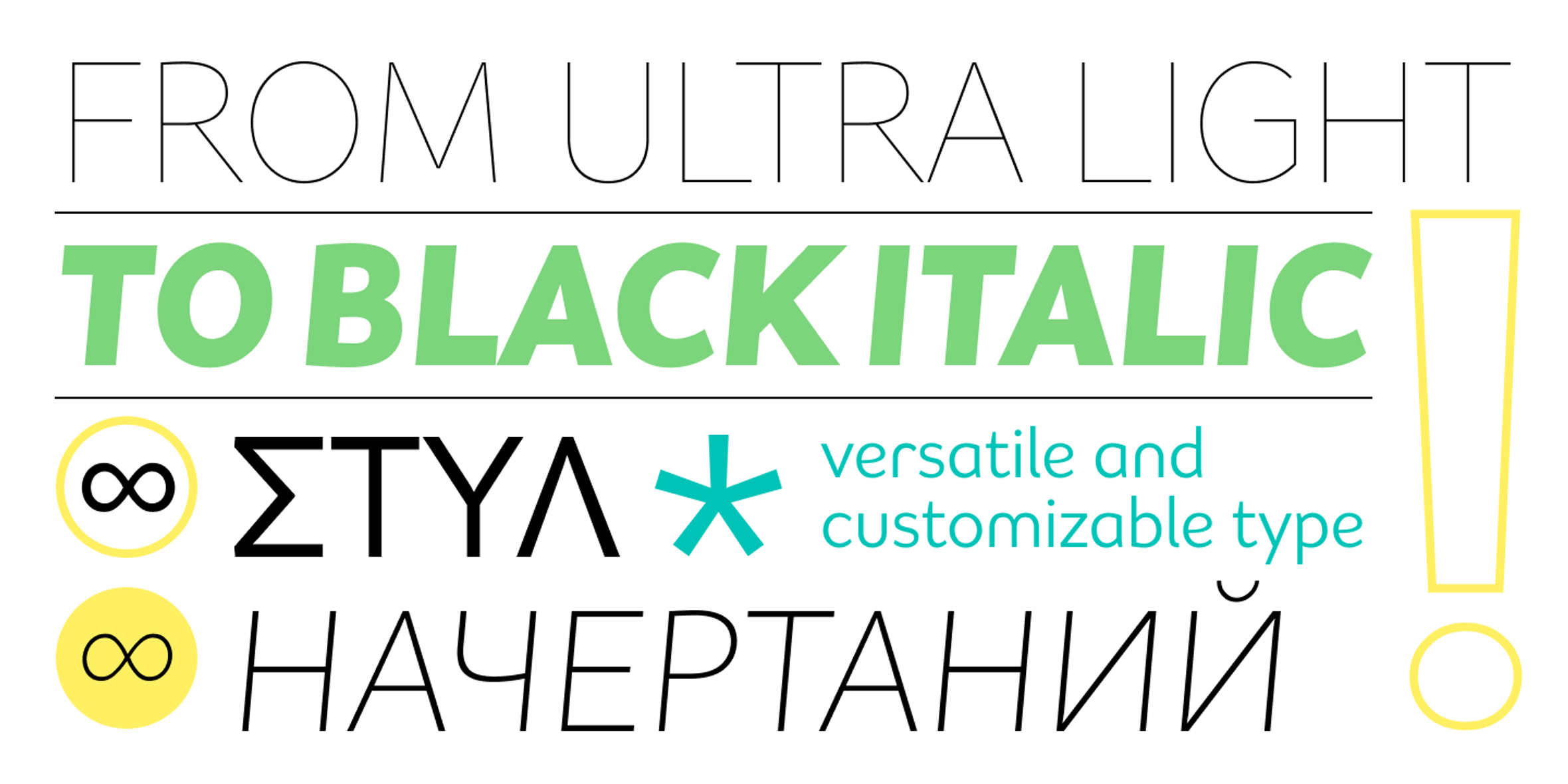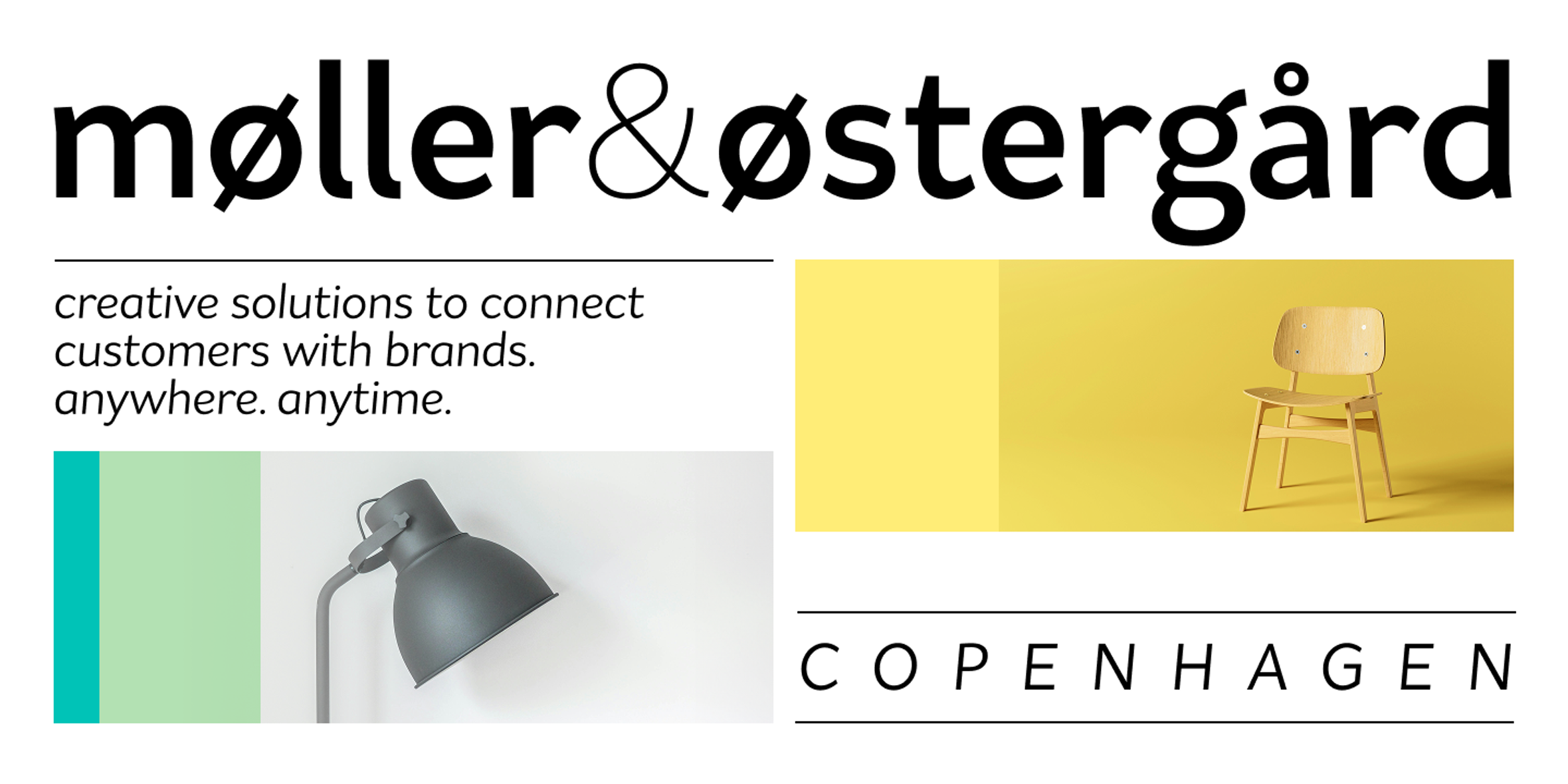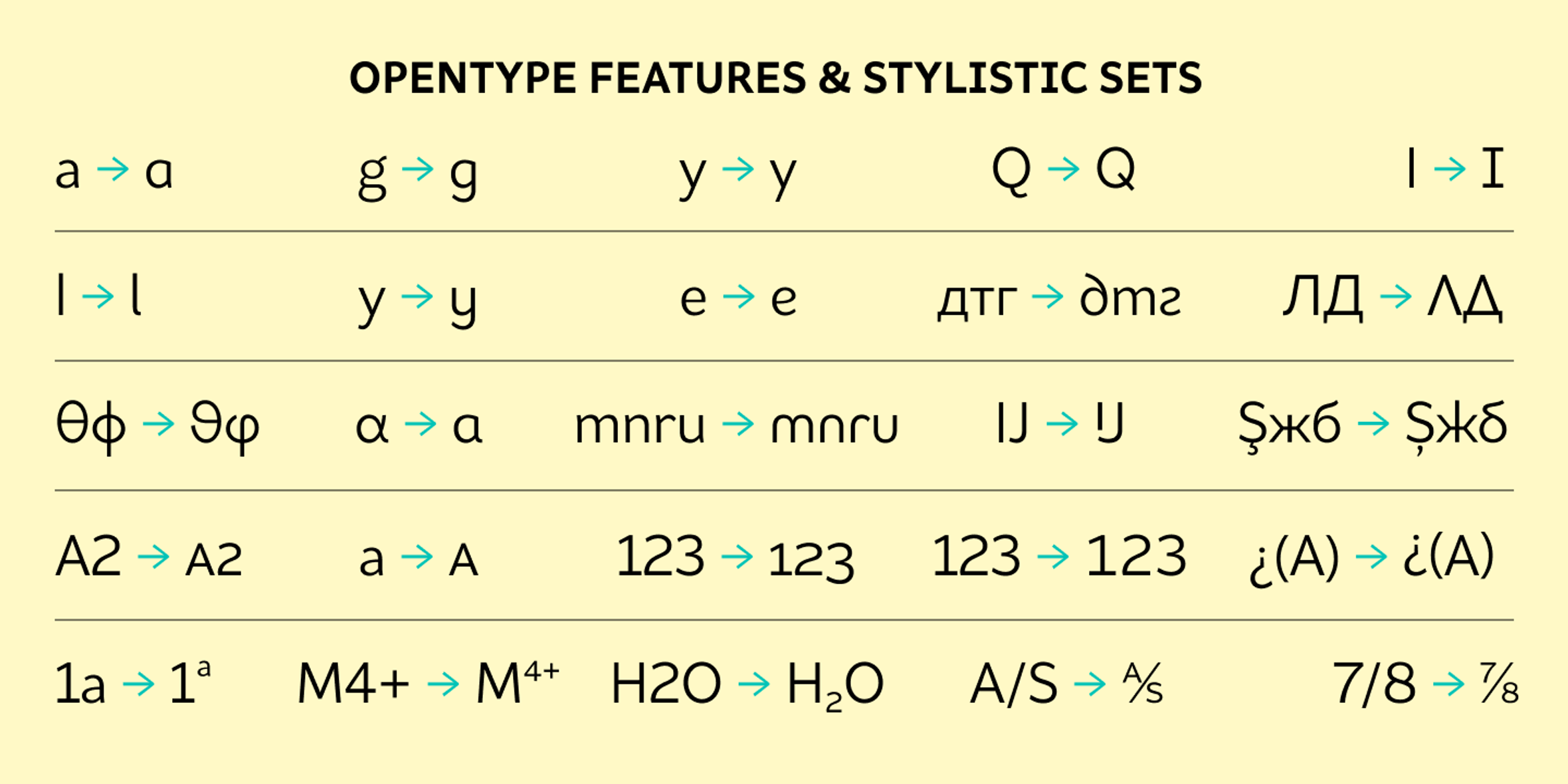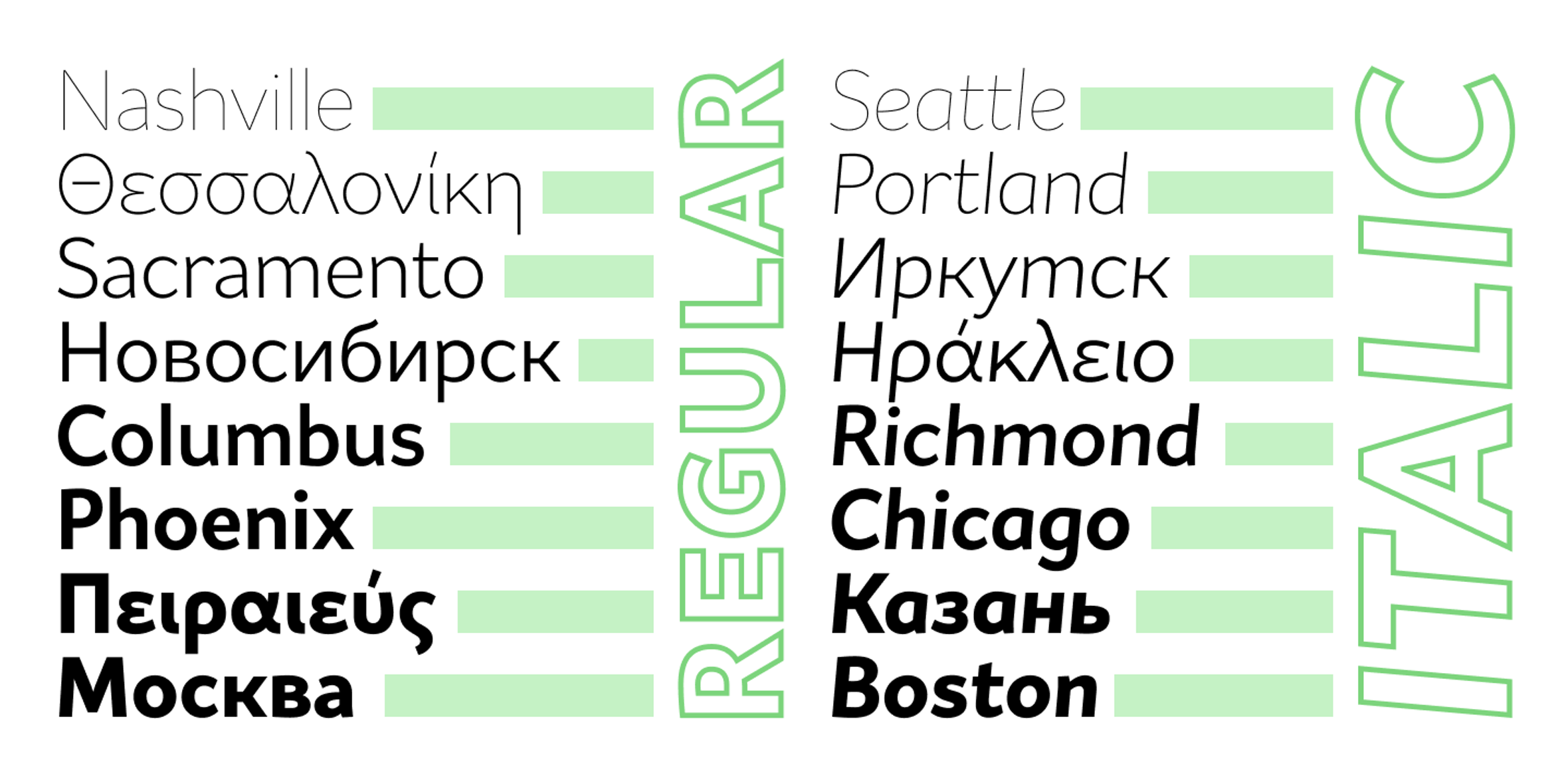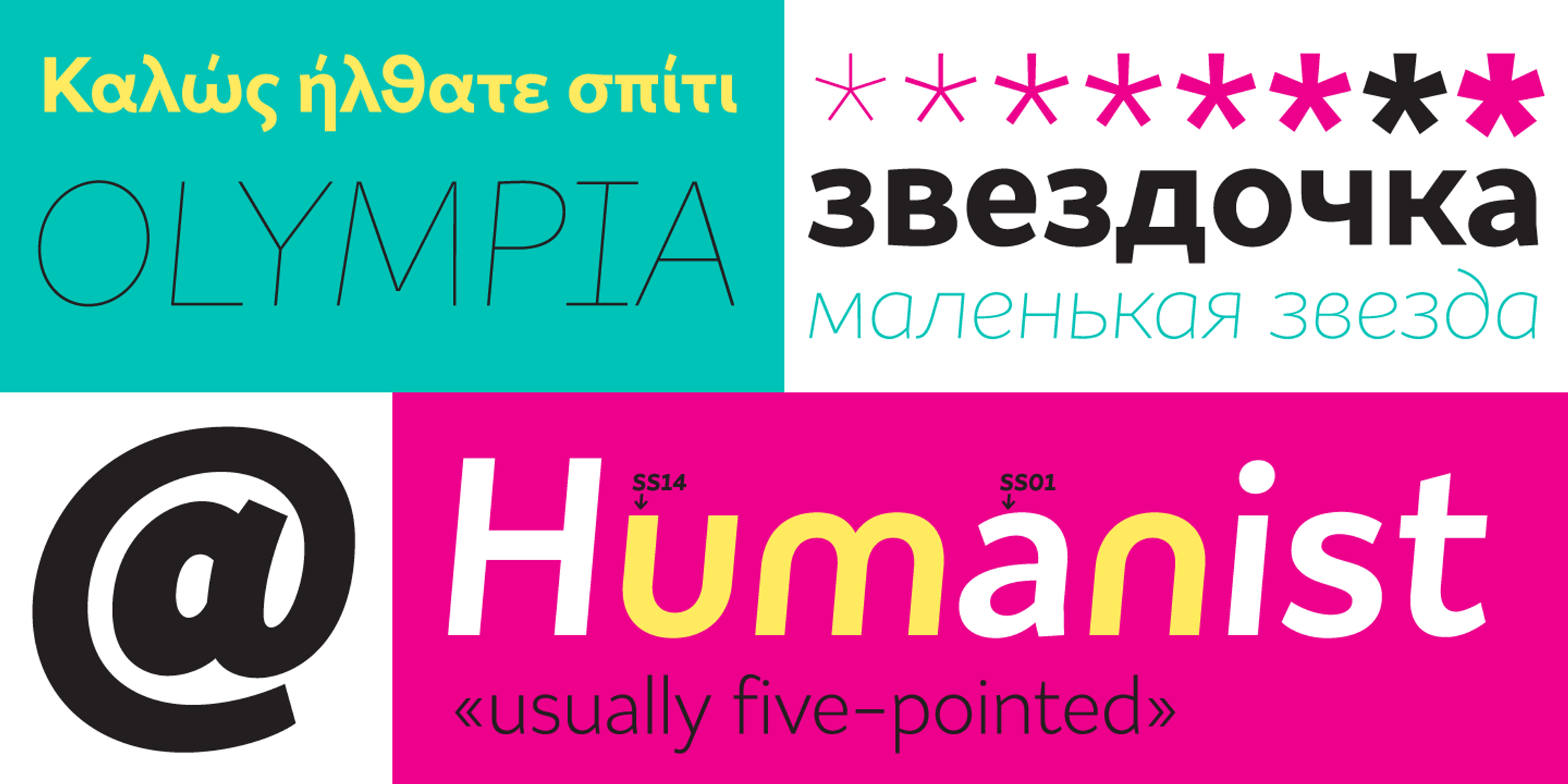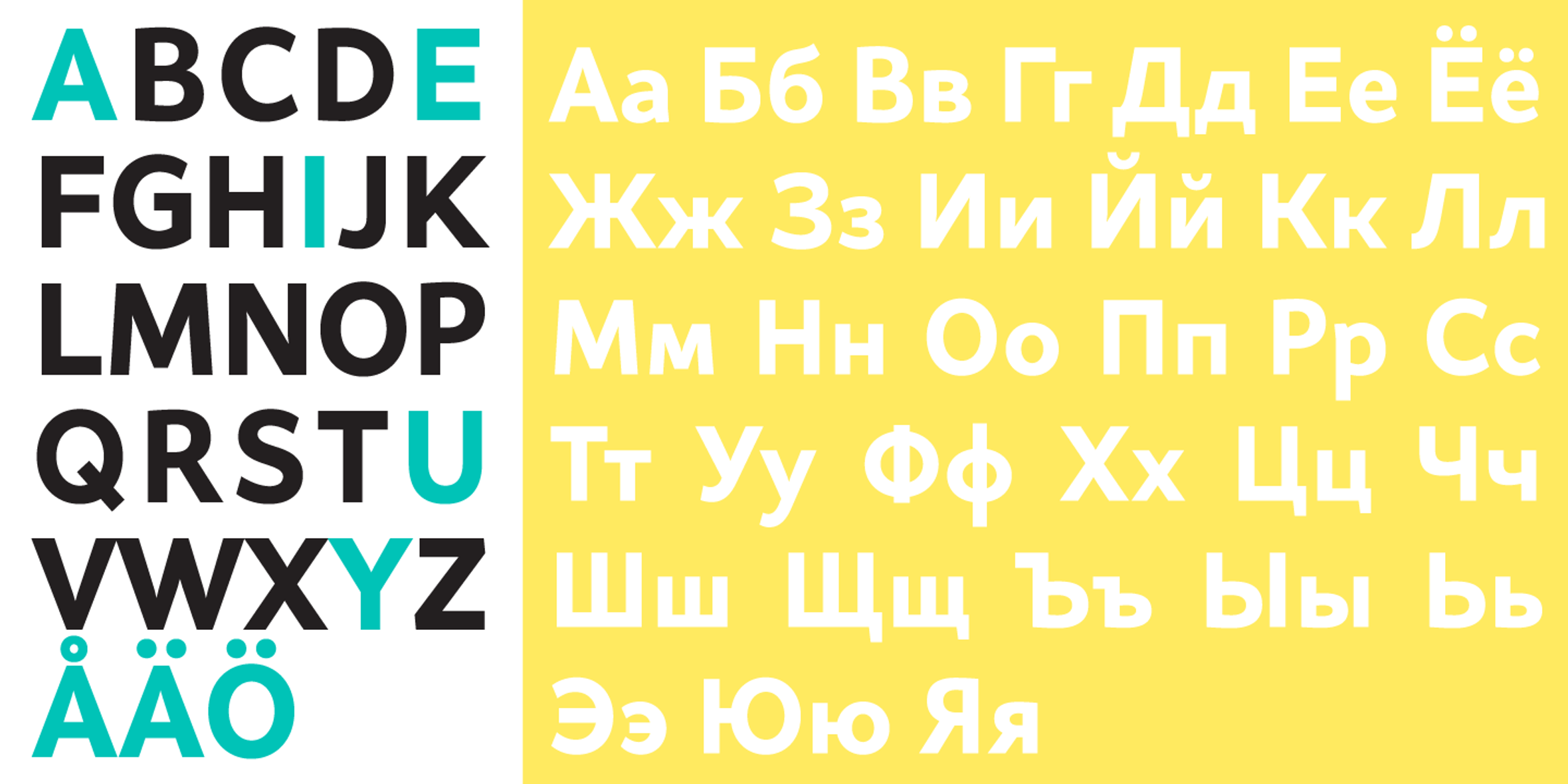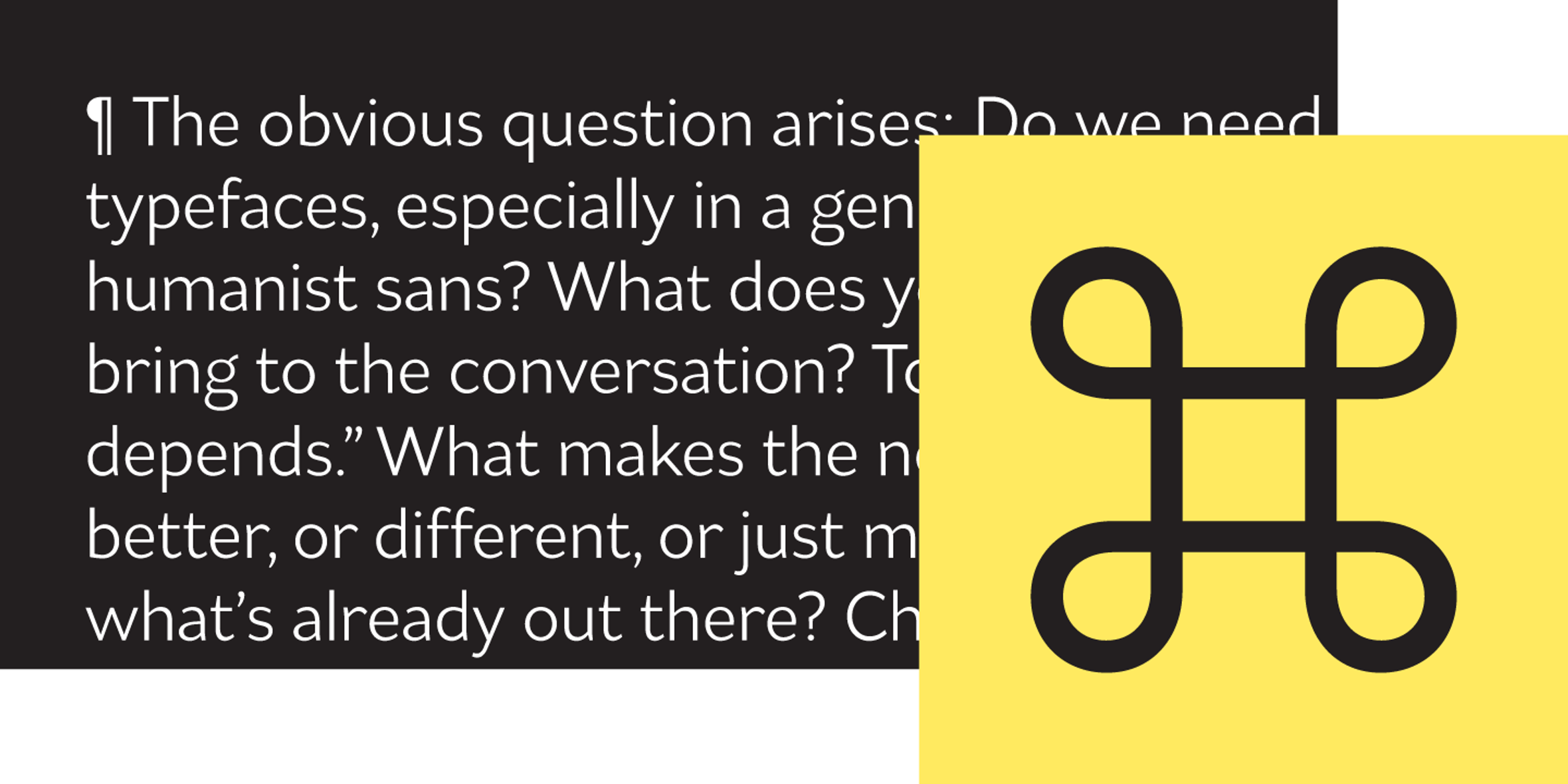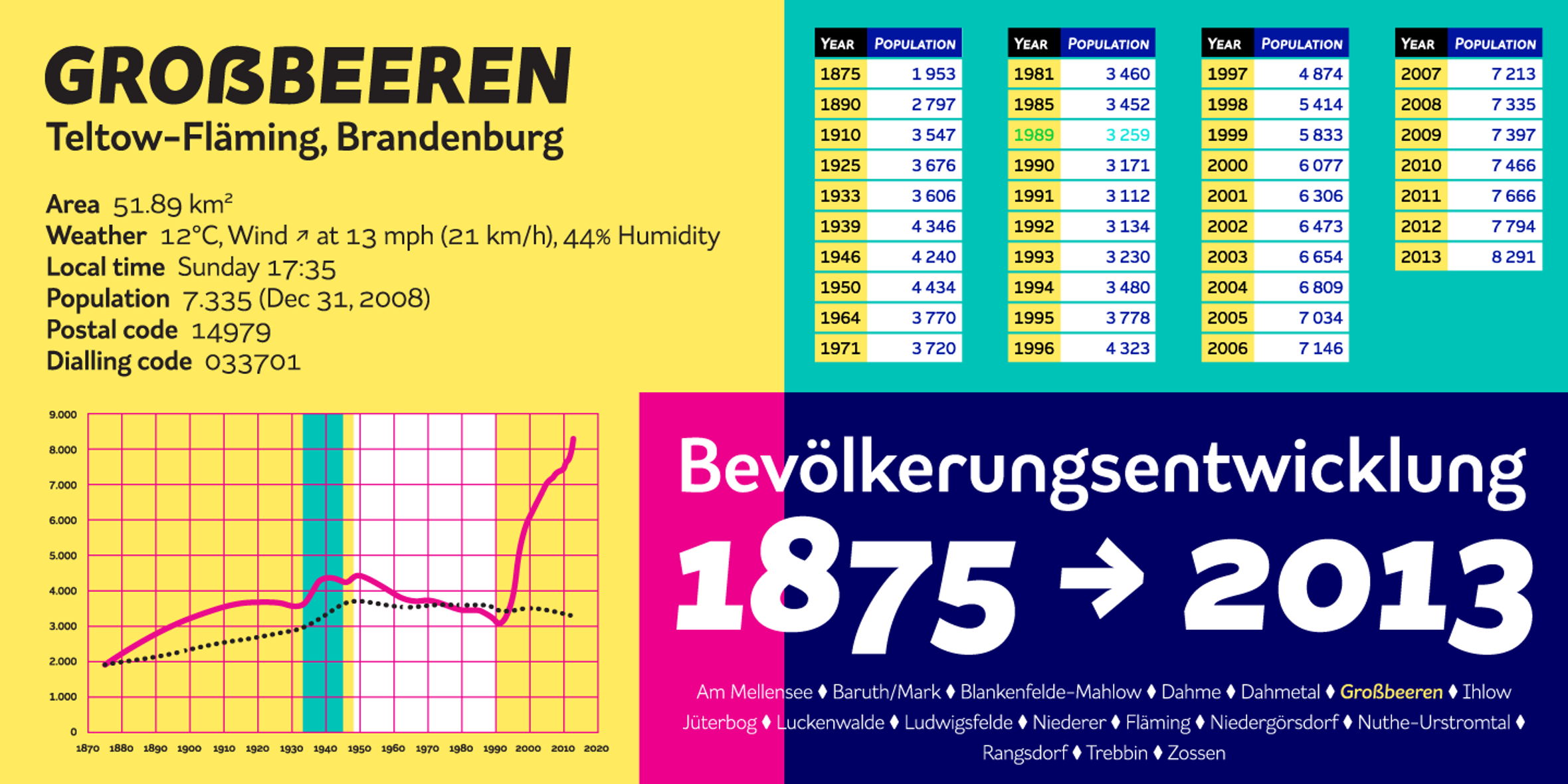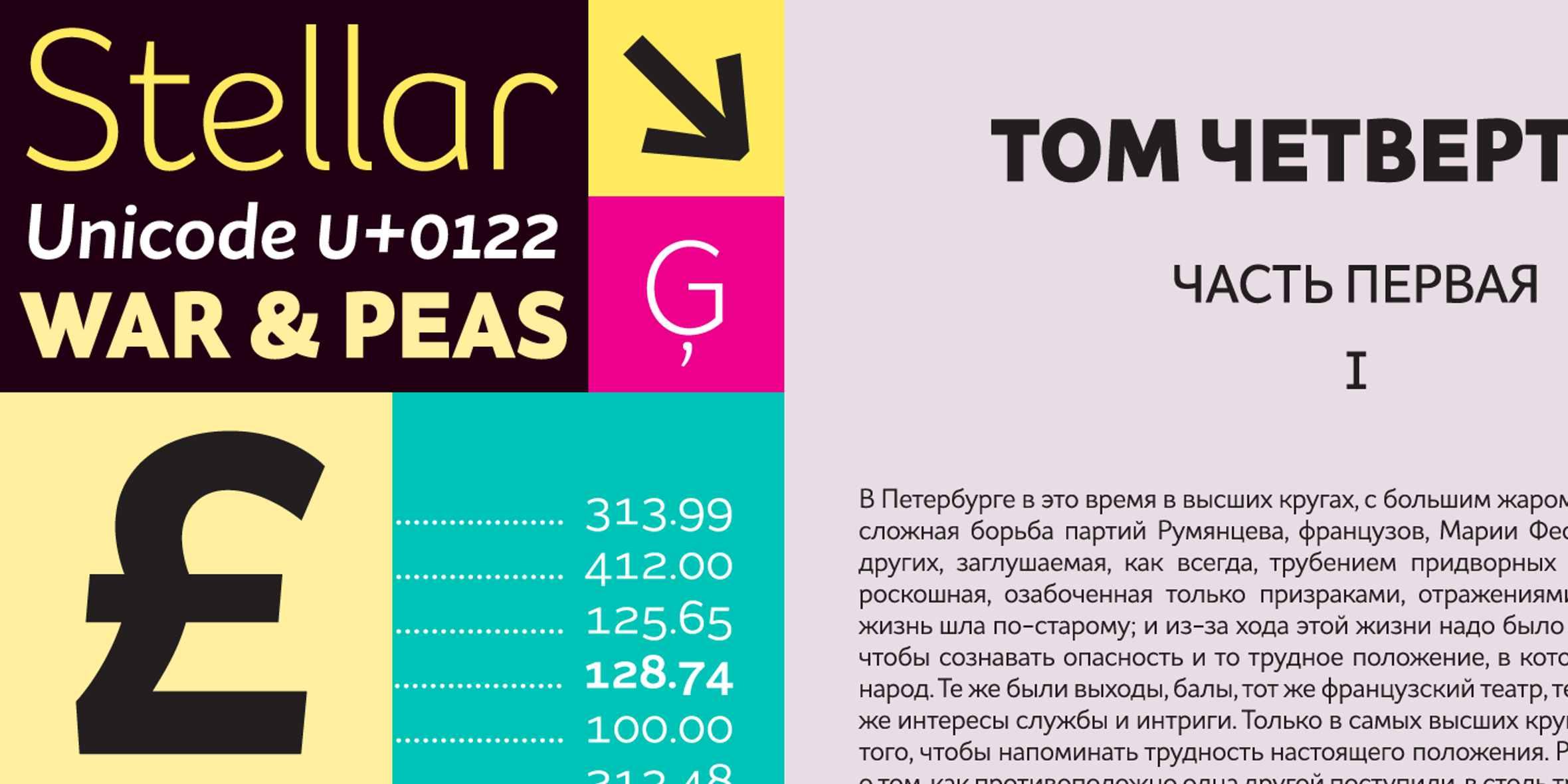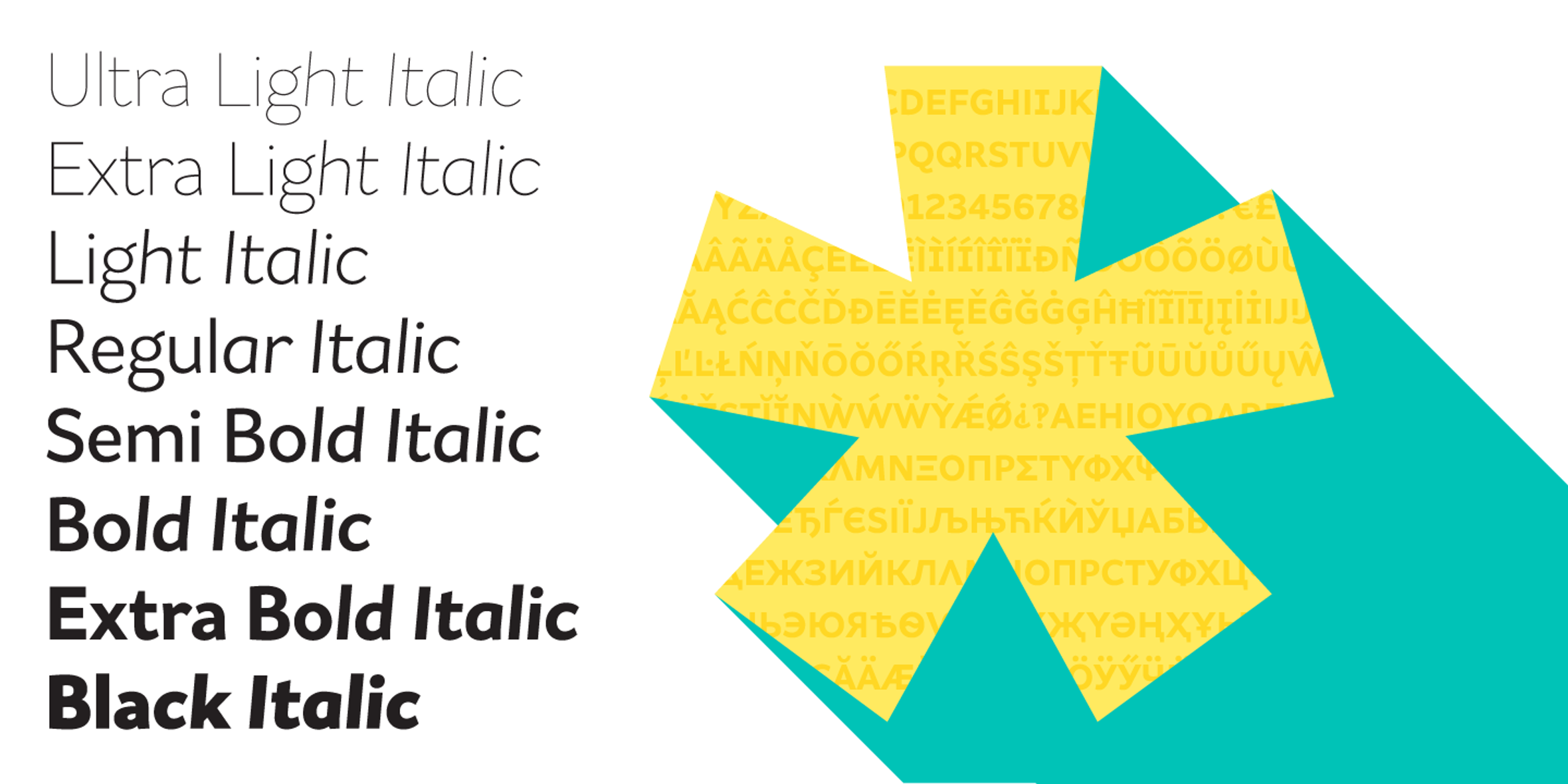
Asterisk Sans Font Family
Asterisk Sans
Asterisk Sans aims to be a highly versatile humanist sans. The look is contemporary; details that give the font’s character at large sizes all but disappear when small, making the midrange weights suitable for lots of text. This family is an invaluable tool in your typeface arsenal, great for everything from corporate identities to editorial work, apps, and cookbooks. Asterisk Sans is also a highly versatile type family due to its pan-European language support, including Greek and Cyrillic.
- Belarusian
- Bulgarian
- Greek
- Kazakh
- Macedonian
- Russian
- Serbian
- Ukrainian
- Uzbek
- Common Ligatures
- Fractions
- Old Style Numerals
- Ordinal Numerals
- Small Capitals
- Small Capitals for Capitals
- Subscript
- Superscript
- Tabular Numerals